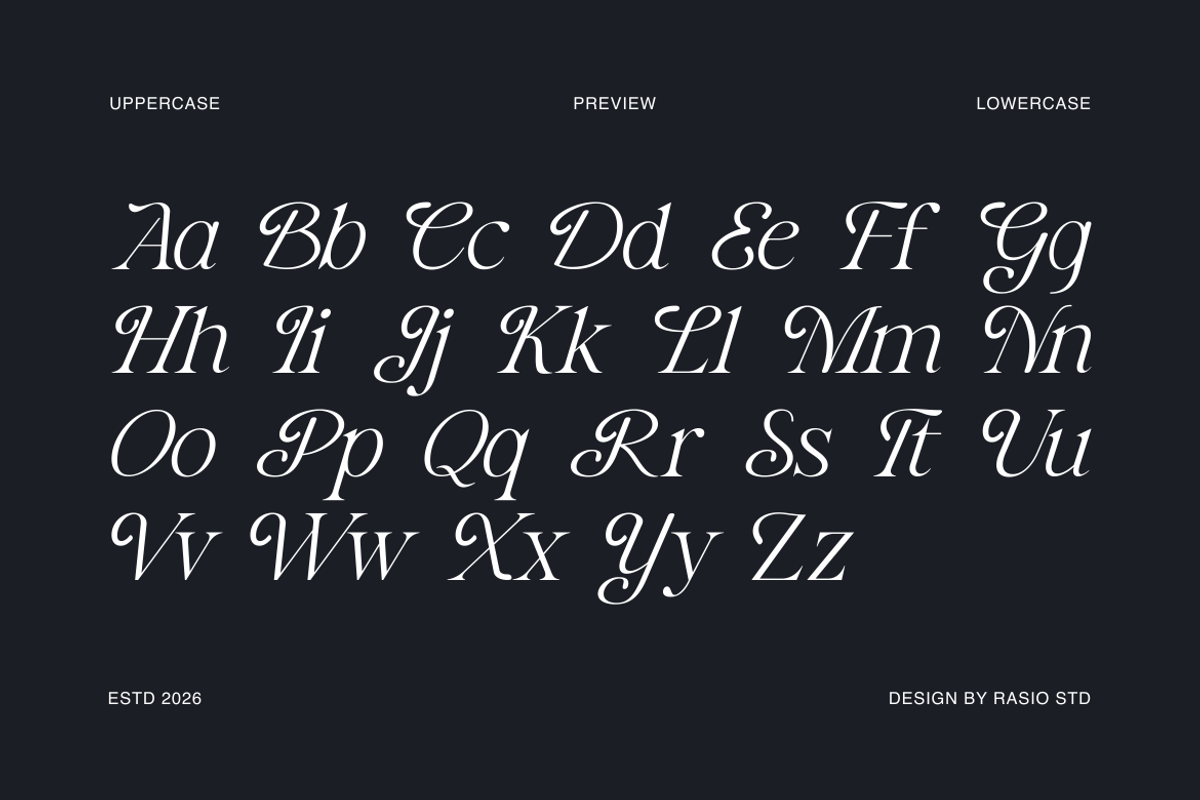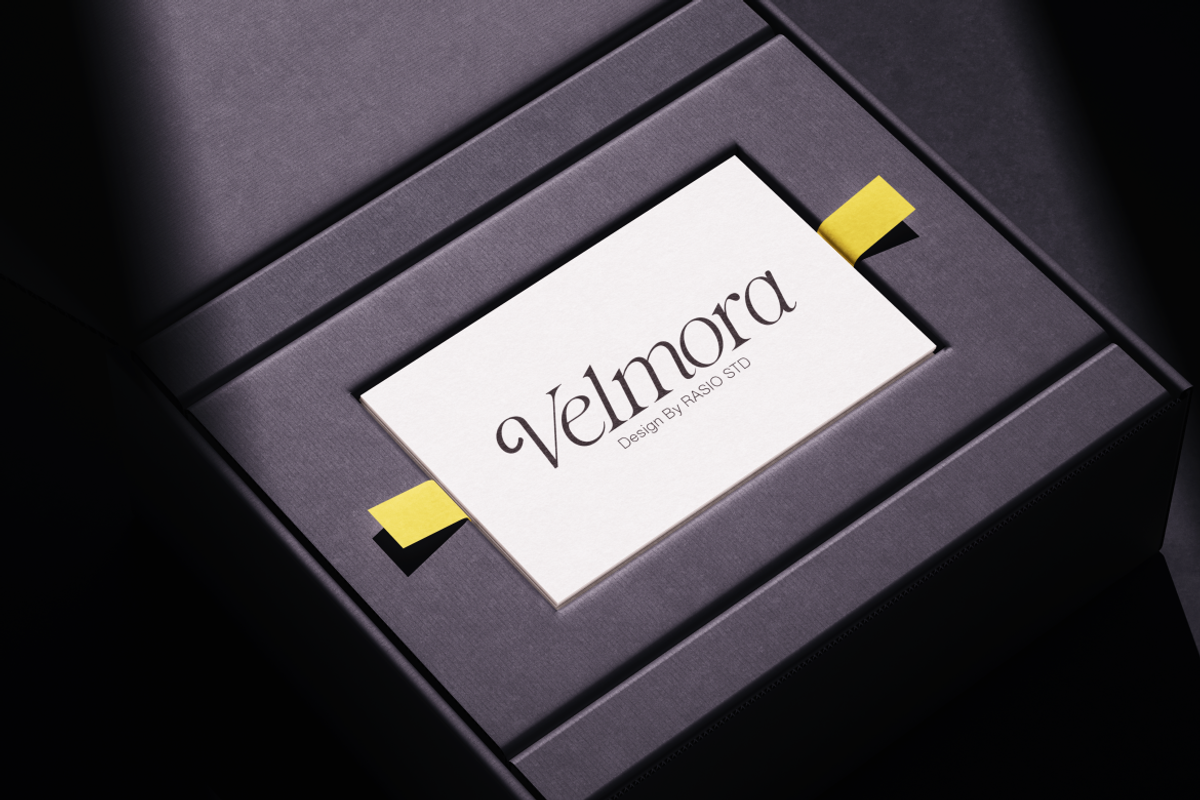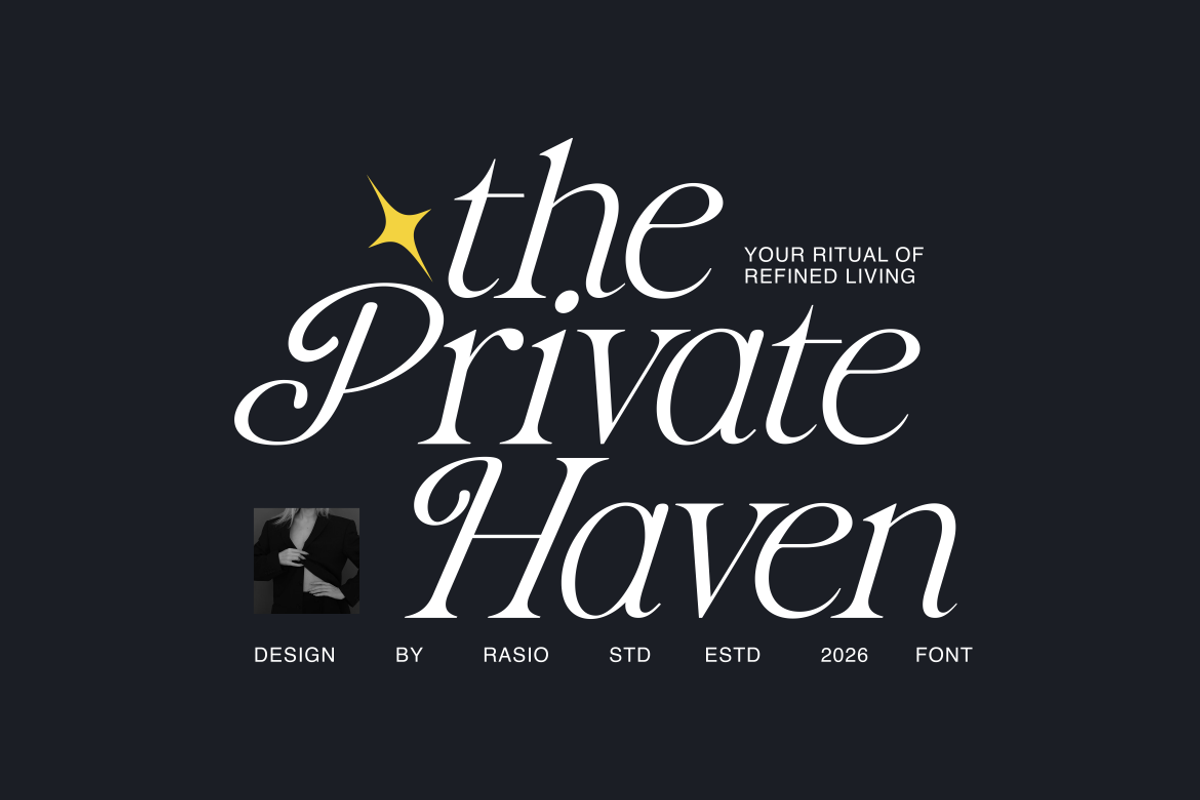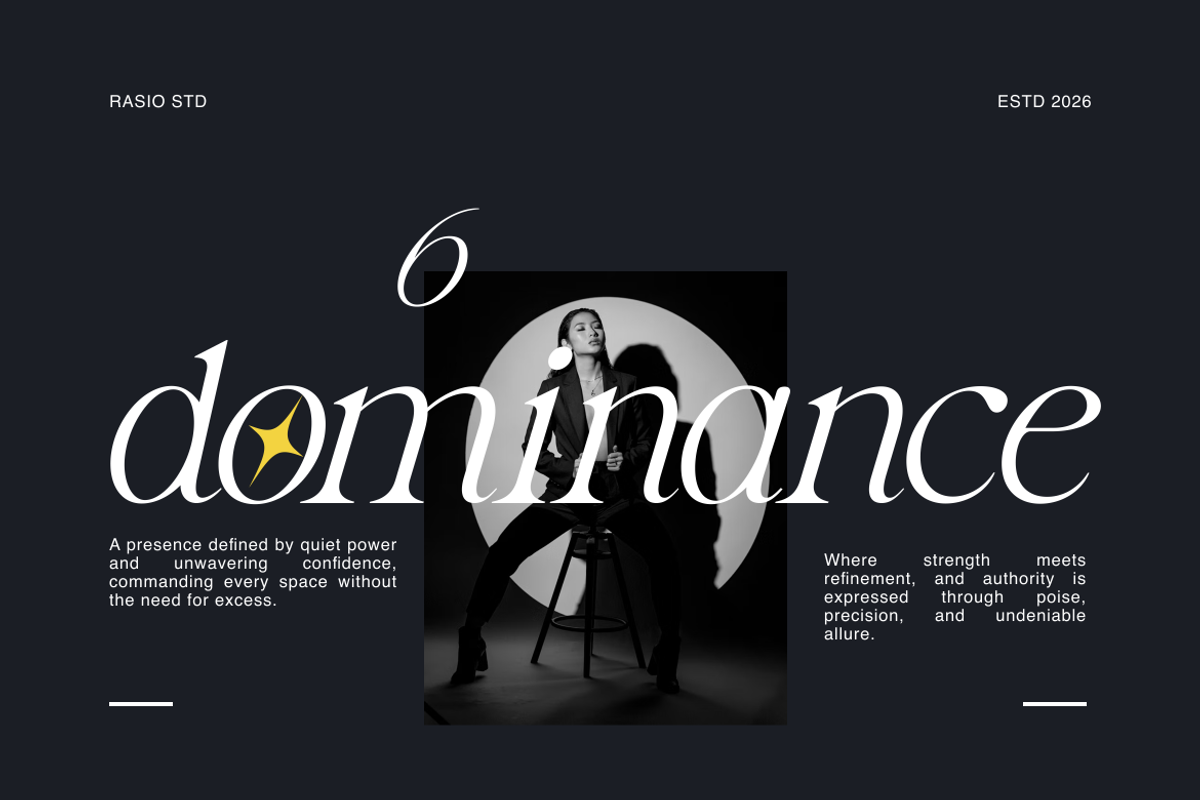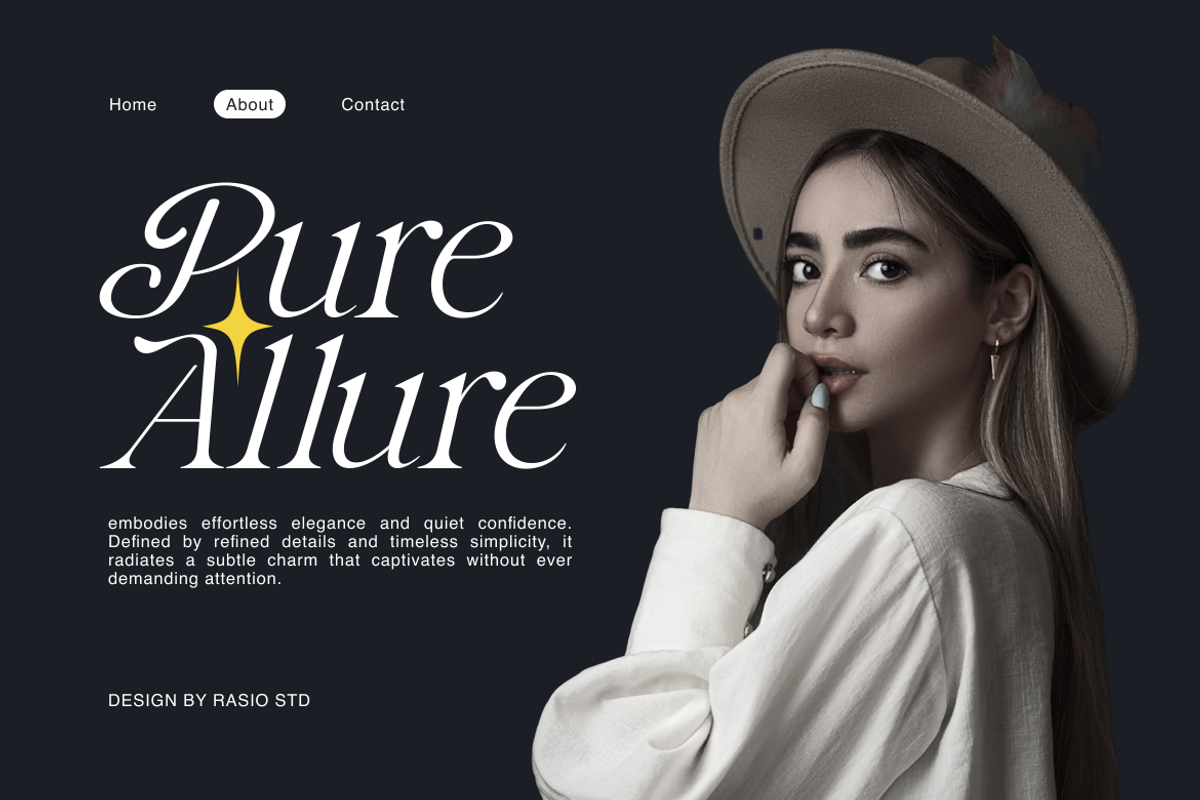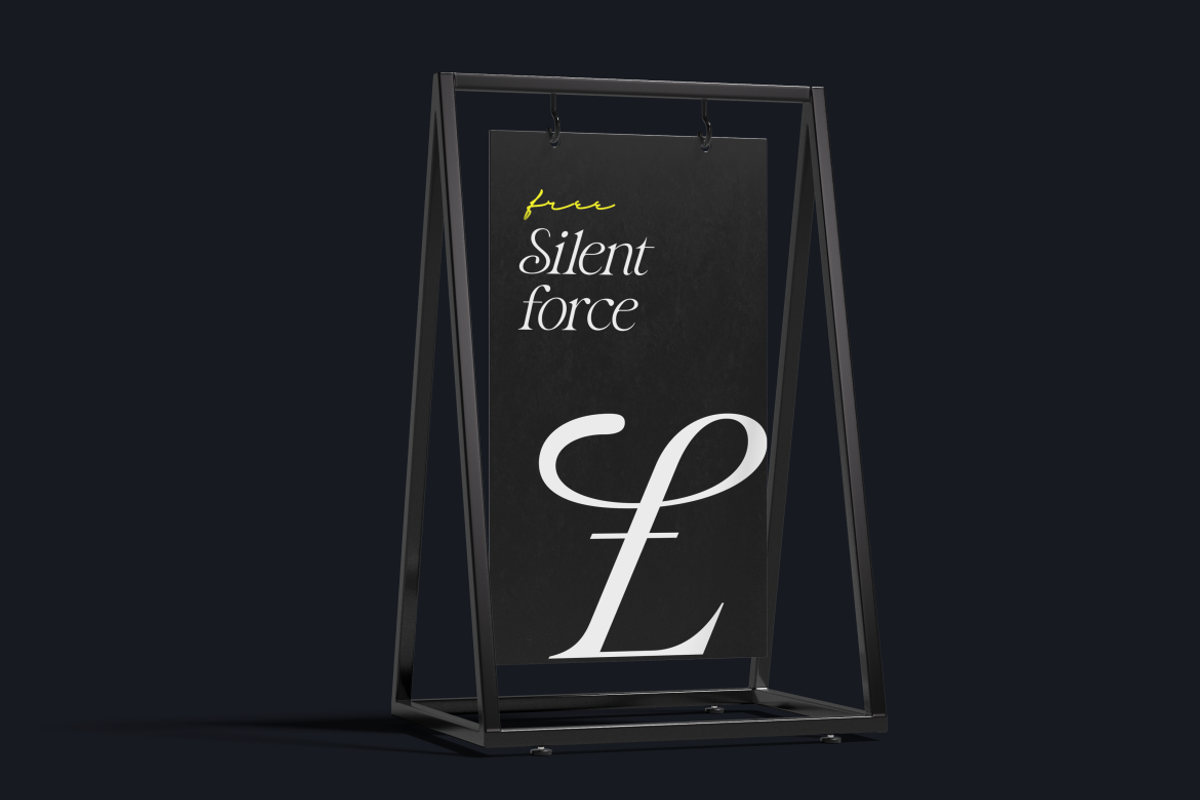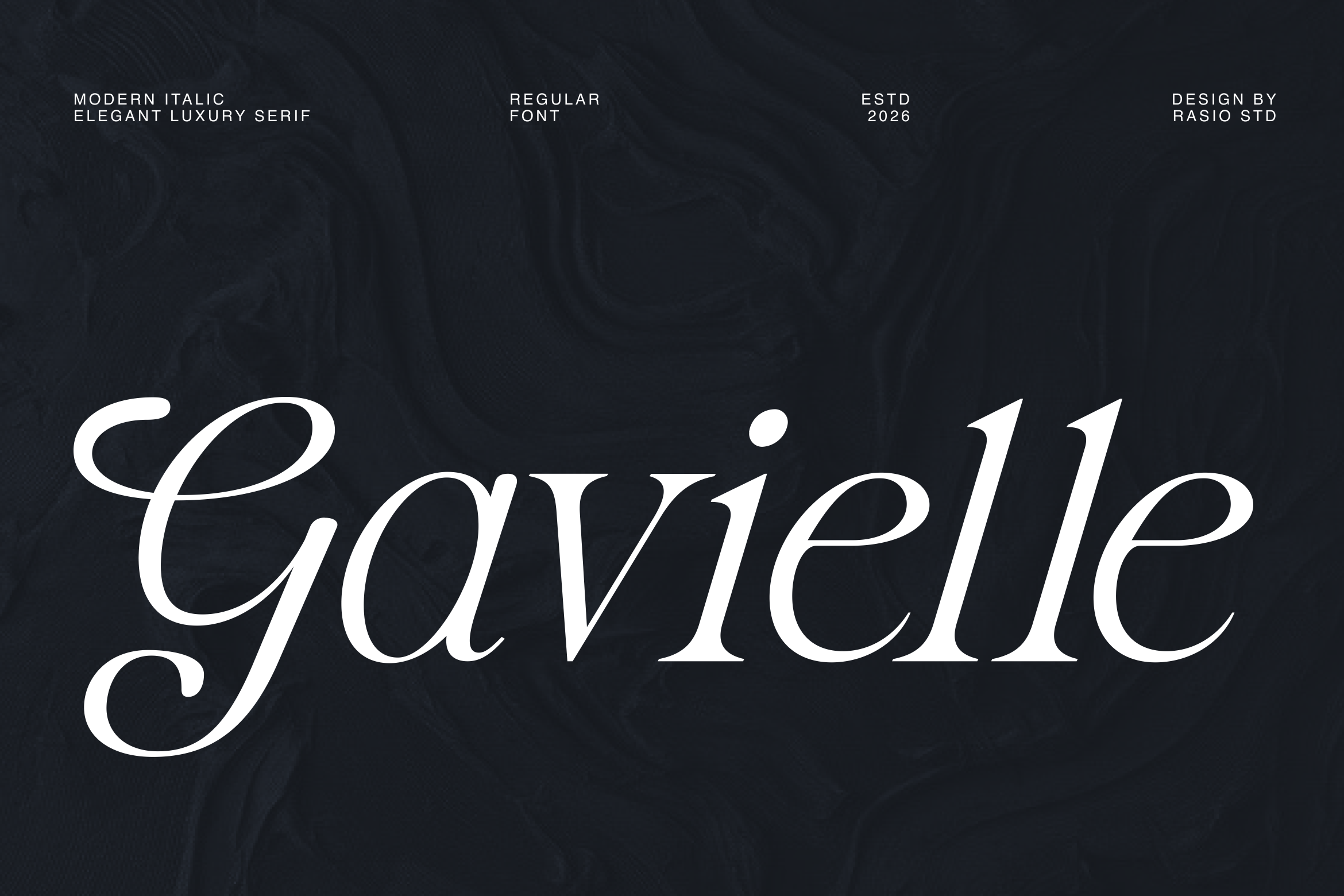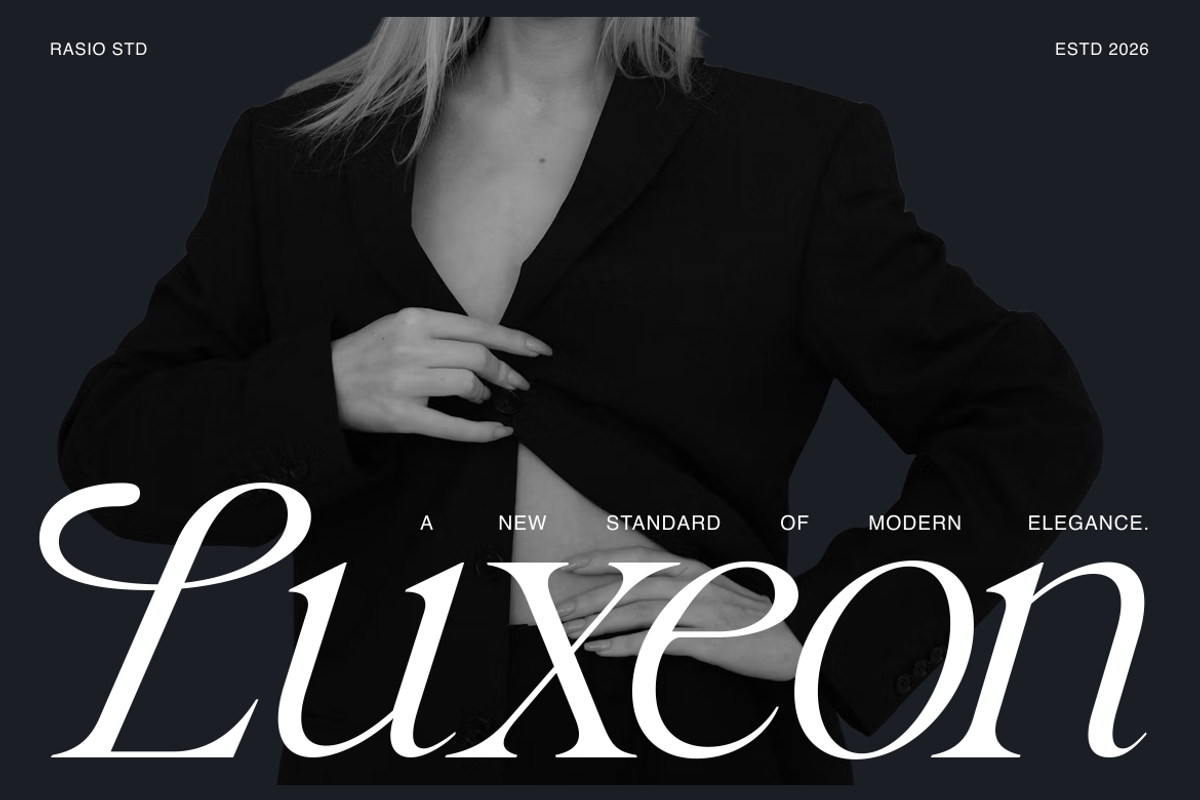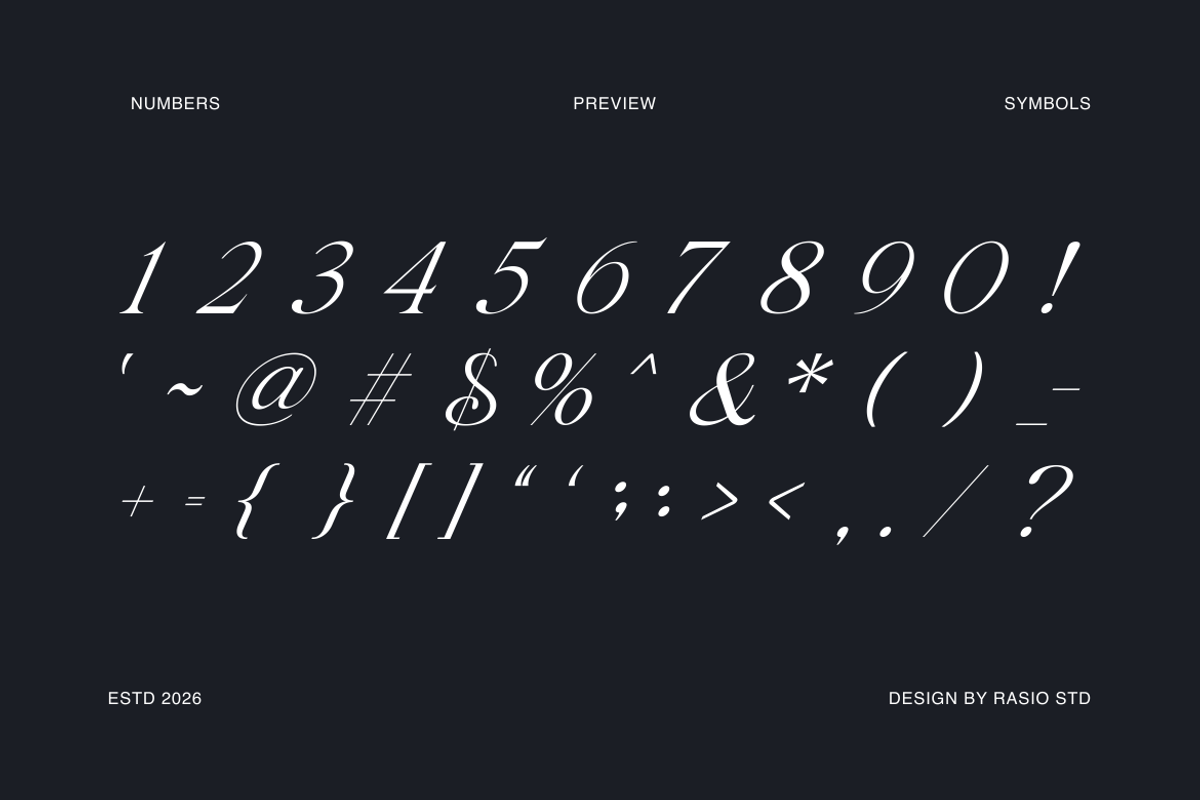
Gavielle Italic Elegant Serif Font
Gavielle is a modern elegant italic serif font crafted with graceful curves and refined contrast, creating a sophisticated and luxurious typographic presence. The letterforms feature flowing italic structures, delicate serif terminals, and balanced proportions that enhance readability while maintaining an upscale aesthetic. This typeface includes uppercase, lowercase, numerals, punctuation, and multilingual characters, making it versatile for a wide range of professional design projects.
Gavielle is designed for luxury branding, fashion editorials, high-end packaging, beauty product labels, elegant wedding stationery, magazine layouts, boutique logos, social media branding, sophisticated marketing visuals, and upscale promotional designs that require a refined and graceful typographic style. Gavielle works beautifully for luxury brand identities, fashion campaigns, editorial magazine layouts, wedding invitations, boutique packaging.
- Refined italic serif structure with graceful flowing letterforms
- High-contrast strokes that enhance the elegant and luxurious appearance
- Delicate serif terminals that add sophistication and classic charm
- Smooth italic rhythm that creates a dynamic and stylish typographic flow
- Carefully balanced spacing that maintains clarity in display typography
- Luxury brand identities and elegant logo designs
- Fashion editorials, magazine covers, and stylish typography layouts
- High-end product packaging, cosmetics, and perfume branding
- Wedding invitations, event stationery, and romantic typography
- Social media graphics and marketing visuals with a refined luxury aesthetic